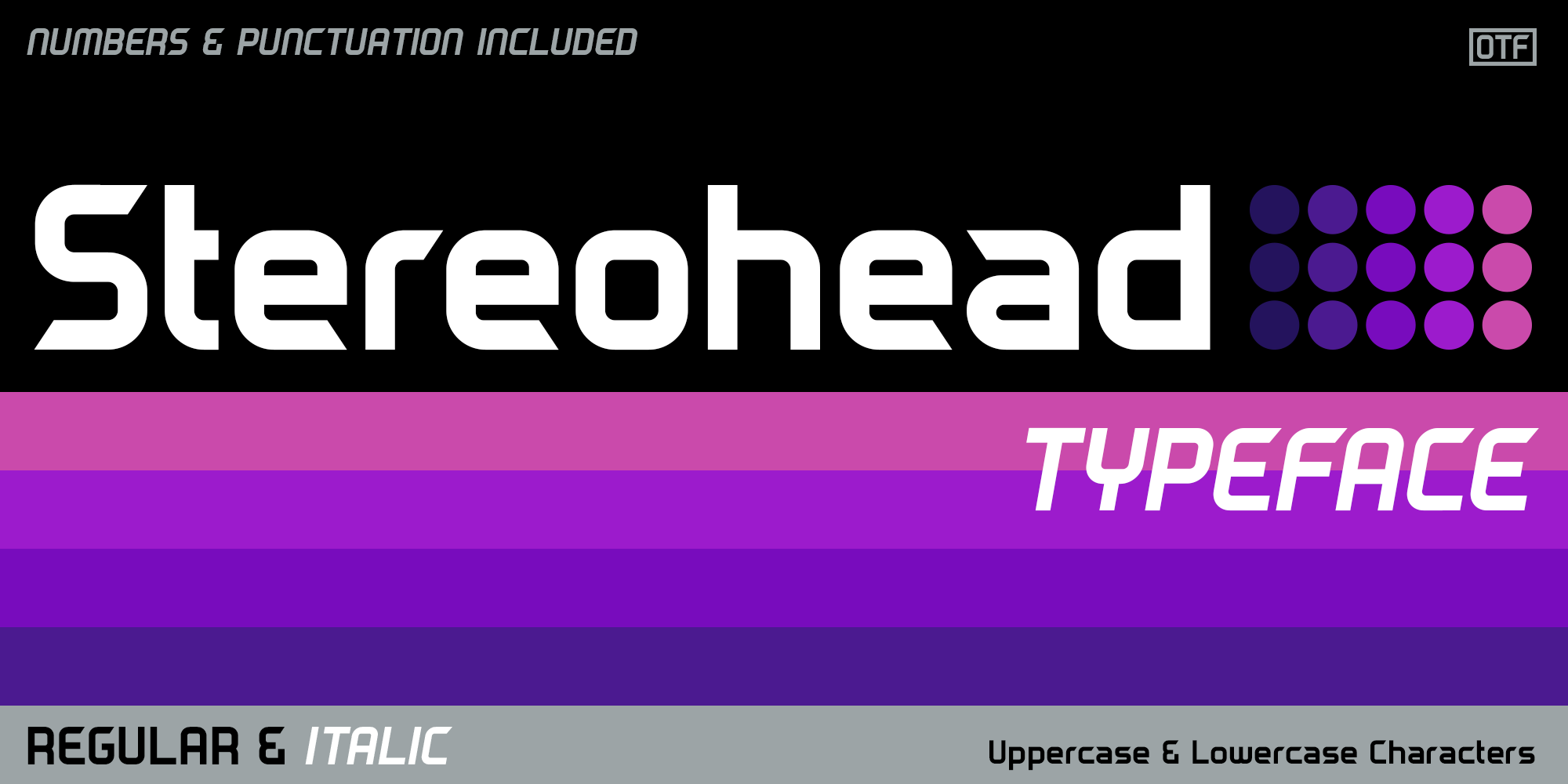
Stereohead Font is a dynamic and cutting-edge display typeface that perfectly embodies the vibrant energy of music, sound, and modern digital culture. Its bold, often geometric or distorted letterforms and distinctive visual effects make it an exceptional choice for projects that demand a powerful, high-energy, and contemporary aesthetic. Imagine it ideal for music festival branding, DJ and producer logos, innovative tech company advertisements, futuristic video game titles, dynamic album art, or striking headlines for digital media platforms. This font excels in environments where a sense of rhythm, innovation, and an unmistakable sonic presence are paramount. It’s particularly effective for conveying excitement, modern artistry, and a truly unique flair, ensuring your message not only stands out but also resonates with an irresistible beat and visual impact.
What makes Stereohead Font truly exciting is its ability to translate auditory experiences into a visual form, making text look and feel like a pulsating sound wave or a vibrant equalizer. It often features unique stylistic elements, such as glitch effects, layered dimensions, or sharp angles, that give each character an electric personality. This font isn't just about displaying text; it's about creating a multisensory experience, injecting your designs with a sense of vibrant energy and cutting-edge creativity. It has a powerful ability to feel both incredibly dynamic and surprisingly versatile, making it an ideal tool for designers who want their work to convey excitement, innovation, and a truly memorable visual impact. Stereohead Font empowers brands and creatives to project an image that is bold, technologically advanced, and full of sonic power.
The Stereohead Font family often focuses on delivering its unique display style with optimal impact and character. You'll typically find it available in strong, impactful weights, which best showcases its distinctive design elements and energetic nature. While it might not feature a wide range of weights or conventional italic styles, some versions could include stylistic alternatives for certain characters, ligatures, or even unique dingbats that further enhance its dynamic and experimental appearance, allowing for even more customized typographic compositions. The comprehensive character set generally covers standard Latin characters, numbers, and a selection of punctuation, ensuring that Stereohead Font Free Download is suitable for a wide array of creative and commercial applications where a bold and distinctive statement is desired. Its memorable and high-energy presence ensures that any project featuring Stereohead Font will leave a strong, lasting impression.